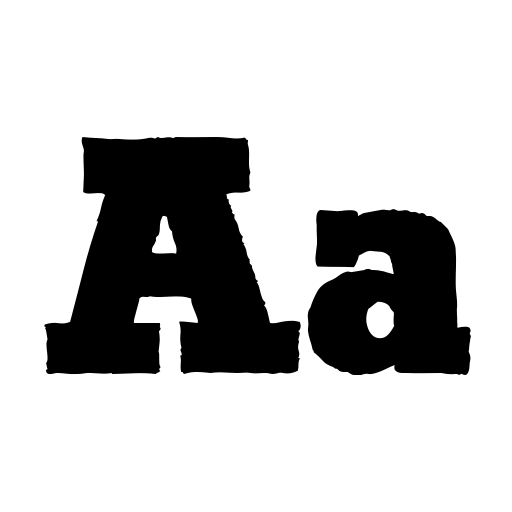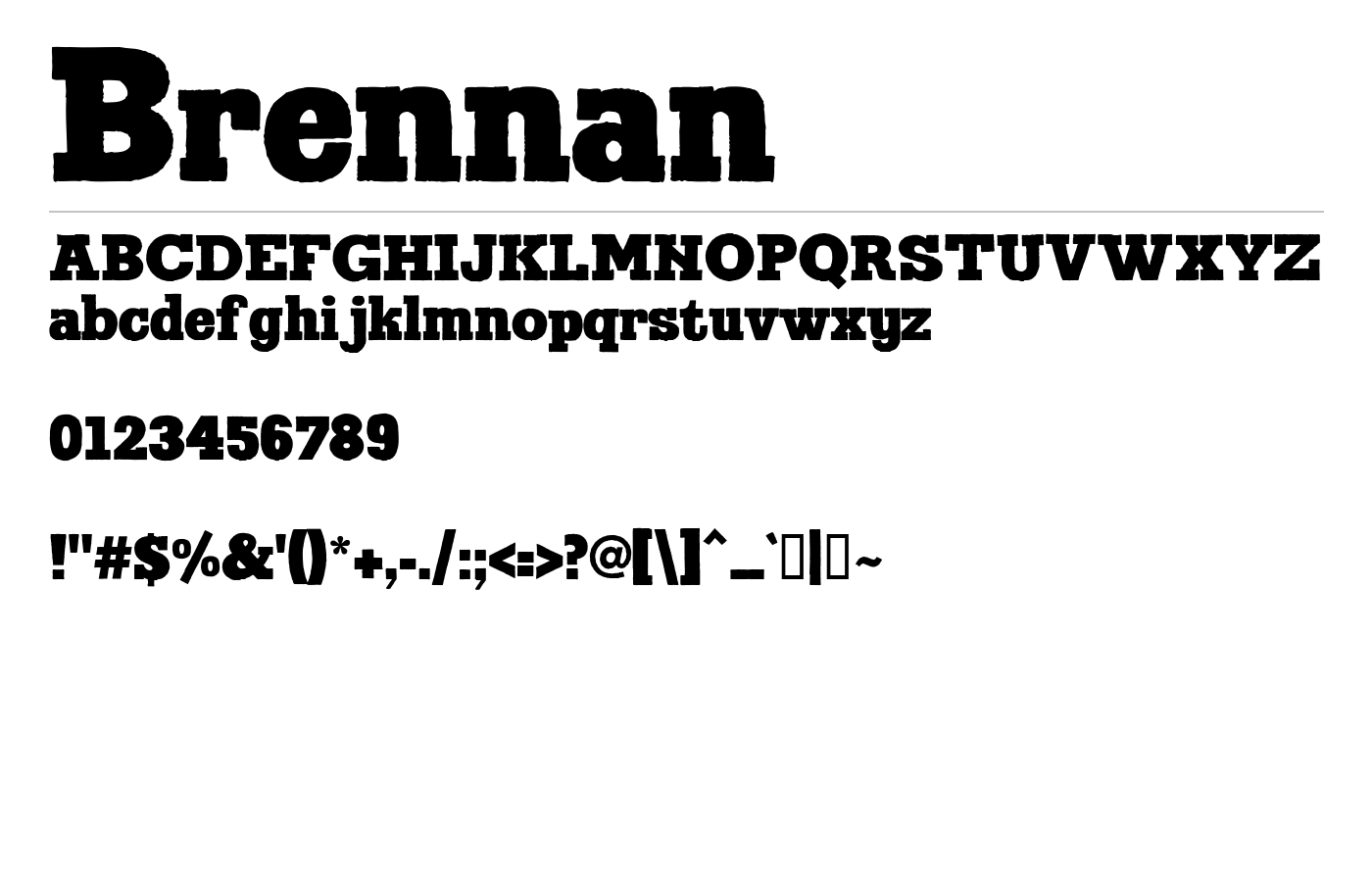
Brennan is a bold slab serif font with a strong, blocky presence and moderate contrast between thick and thin strokes. Its robust letterforms and bracketed serifs give it a vintage, sturdy feel that's perfect for impactful headlines, posters, and branding that needs a confident, classic touch. This font works well in designs aiming for a rugged, trustworthy, and memorable look.
Brennan Font
About Brennan Font
| Font family | Brennan Font |
| Designer | Mario Arturo |